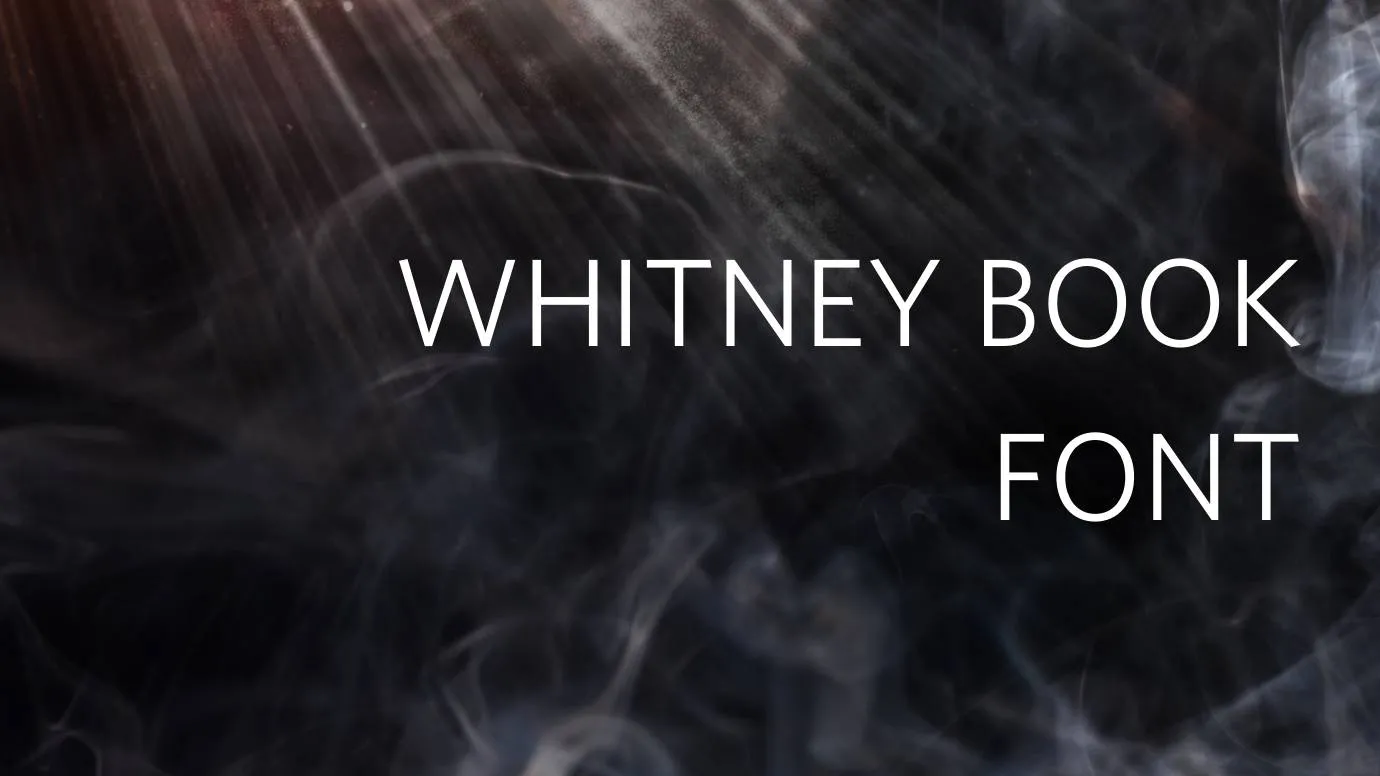
Whitney Book Font
Whitney Book Font Family is a splendid typeface, belongs to the humanist sans serif font family that is known as Whitney Font. It was originally designed by Tobias Frere-Jones and released in 2004 through Hoefler & Frere Jones Typography.
This font family comes in 2 weights that are regular and italic. It supports many different international languages such as Latin, Cyrillic, French, etc same as the Didact Gothic font.
Whitney Book Font
NameWhitney Book Font
DesignerTobias Frere-Jones
FoundryHoefler & Frere Jones
StyleSans Serif
Date Released2004